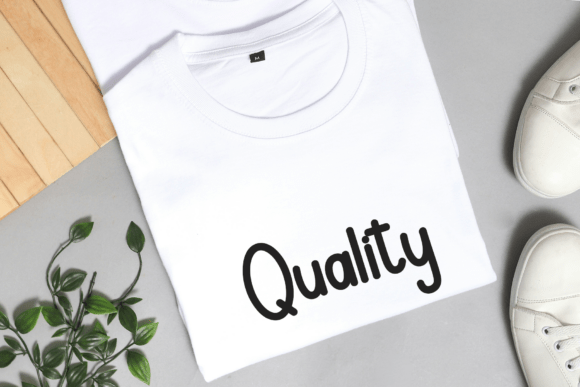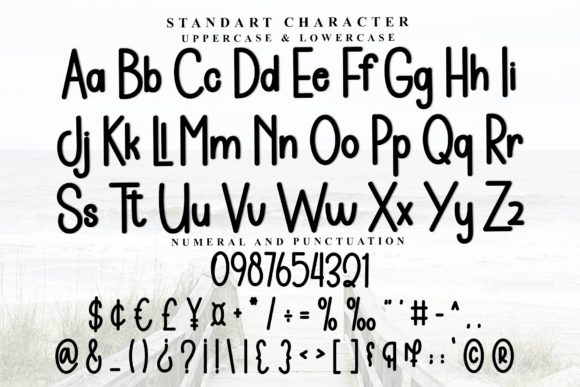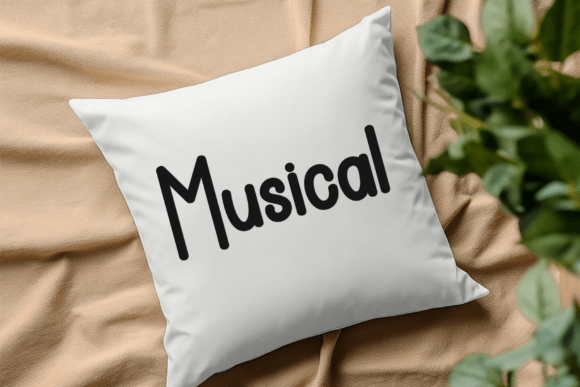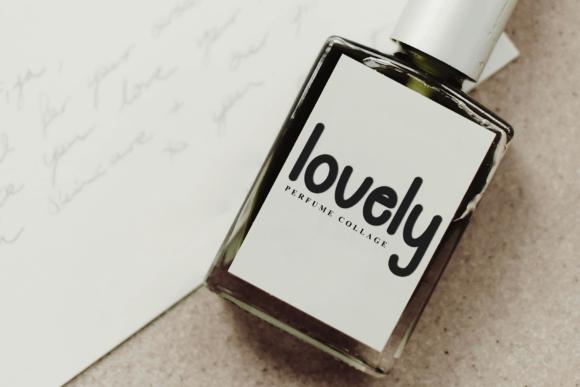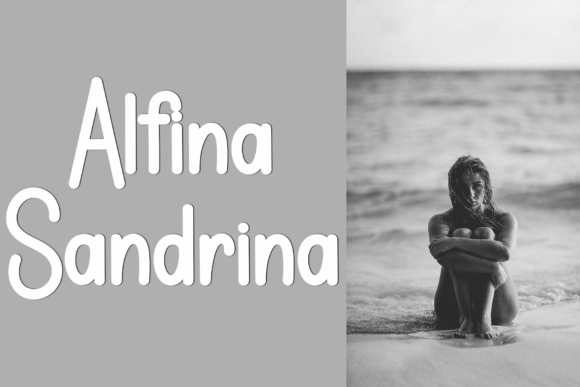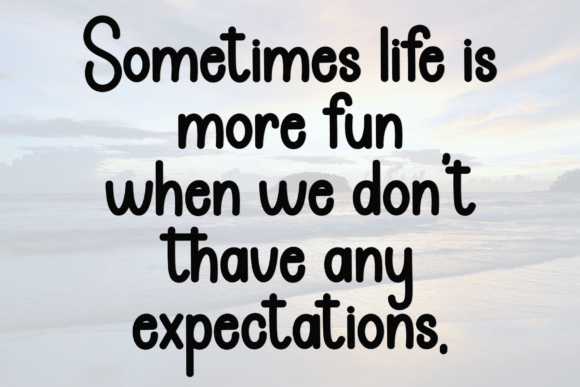
Discover the Charm of Creative Market Font: Handsome
In the world of design, a font can make all the difference. It can elevate your project, convey the right mood, and capture the attention of your audience. If you’re on the hunt for a font that’s both beautiful and versatile, look no further than Handsome, a stunning addition to the Creative Market Font collection.
A Soft, Unique Touch
Handsome is a beautiful and eye-catching font designed with a soft, unique touch. Its distinctive strokes give it a special character, making it meaningful and versatile for future use. The font’s gentle curves and lines create a warm and inviting feel, perfect for a wide range of design projects.
With various characters, Handsome is perfect for design projects, crafts, and other creative works. Whether you’re a professional designer or a crafty DIY enthusiast, this font is sure to inspire. Use it to create stunning logos, eye-catching posters, or beautiful handmade cards. The possibilities are endless!
Enhance Your Designs
Handsome is more than just a font – it’s a design solution. It will enhance your designs, making them appealing to many audiences across different artistic and creative fields. Whether you’re working on a branding project, a website design, or a craft project, Handsome is sure to add a touch of elegance and sophistication.
Why Choose Handsome?
- Unique and eye-catching design: Handsome’s distinctive strokes and soft curves make it a standout font that’s sure to capture attention.
- Versatile and meaningful: With various characters and a natural font style, Handsome is perfect for a wide range of design projects and crafts.
- Ideal for designers and crafters: Whether you’re a professional designer or a crafty DIY enthusiast, Handsome is the perfect font for your creative projects.
Tips for Using Handsome
To get the most out of Handsome, here are a few tips:
- Experiment with different sizes and styles: Handsome looks great in various sizes and styles, so don’t be afraid to experiment and find the perfect combination for your project.
- Pair it with other fonts: Handsome pairs well with other fonts, so try combining it with a bold font for headings or a script font for added elegance.
- Use it for branding and marketing materials: Handsome’s unique design makes it perfect for branding and marketing materials, such as logos, business cards, and brochures.